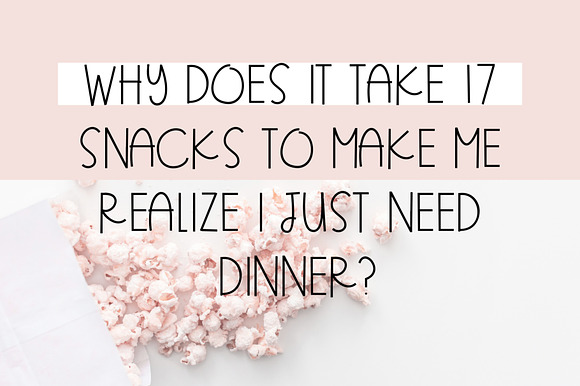
FUN SNACKS Font + Extras
Introducing a new hand lettered font plus fun extra doodles. TTF Files Creativity is endless with this tasty snack!
FUN SNACKS Font + Extras by Jande Summer fits naturally into Branding, posters, packaging, typography.